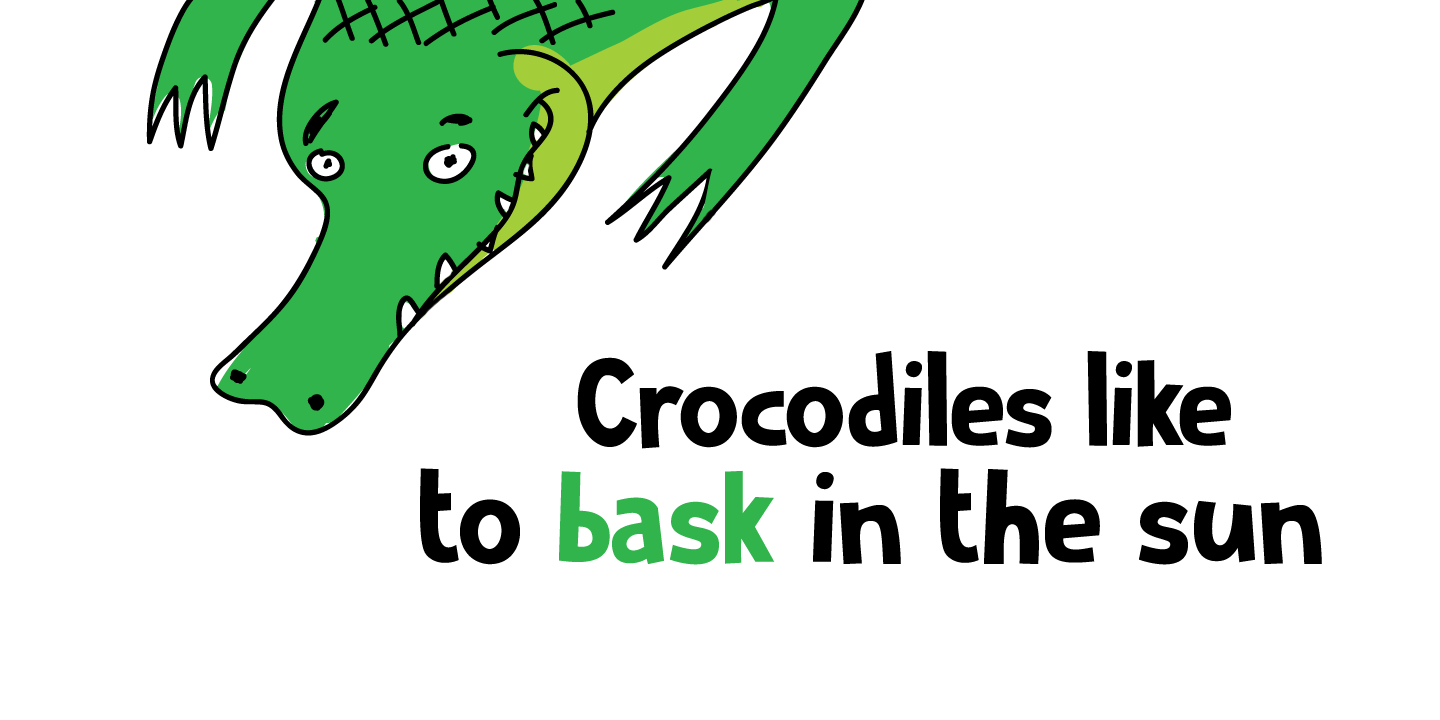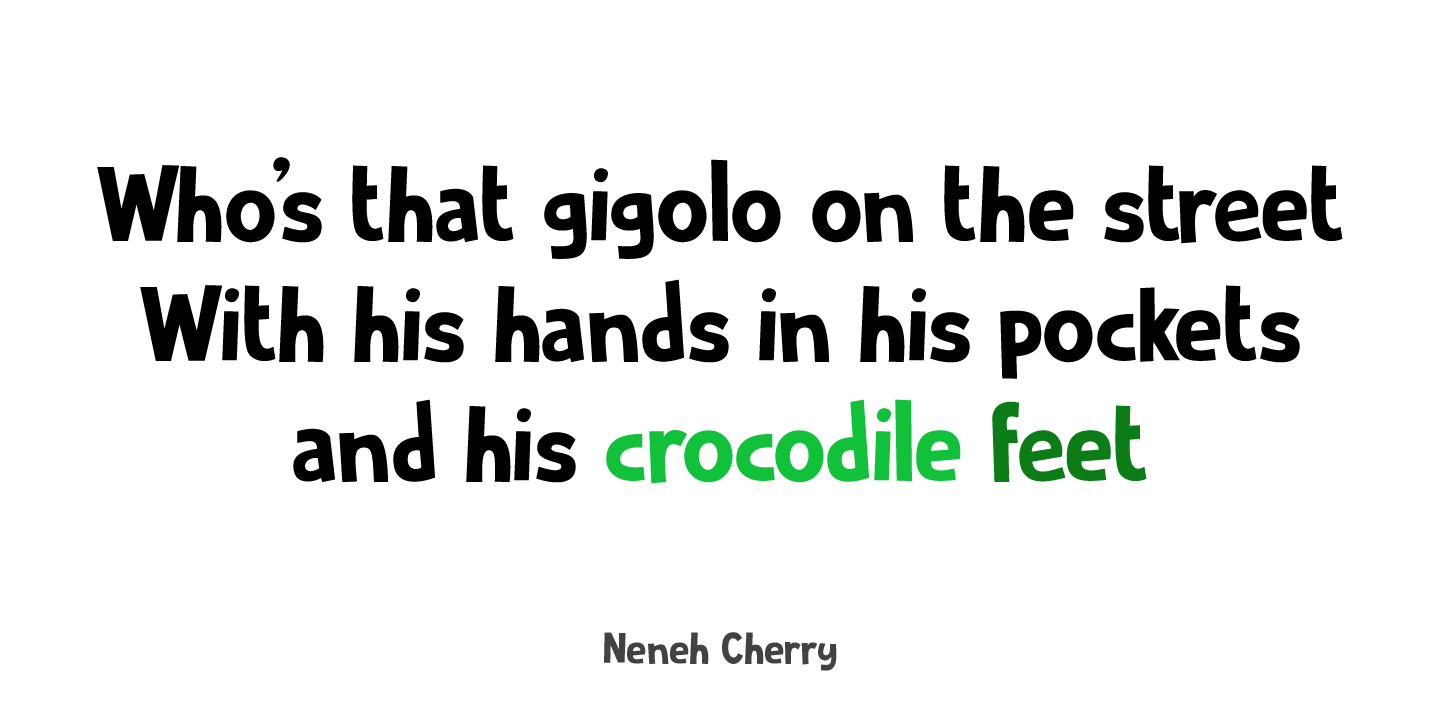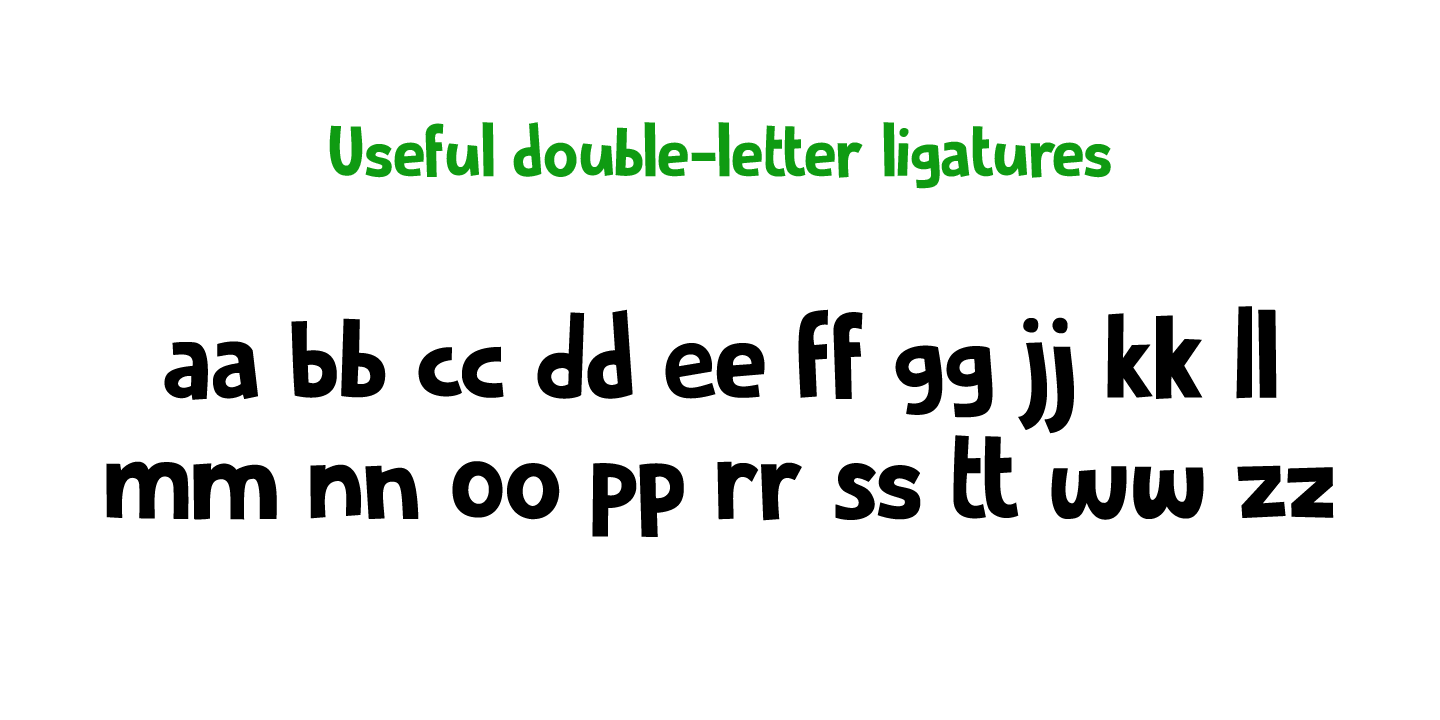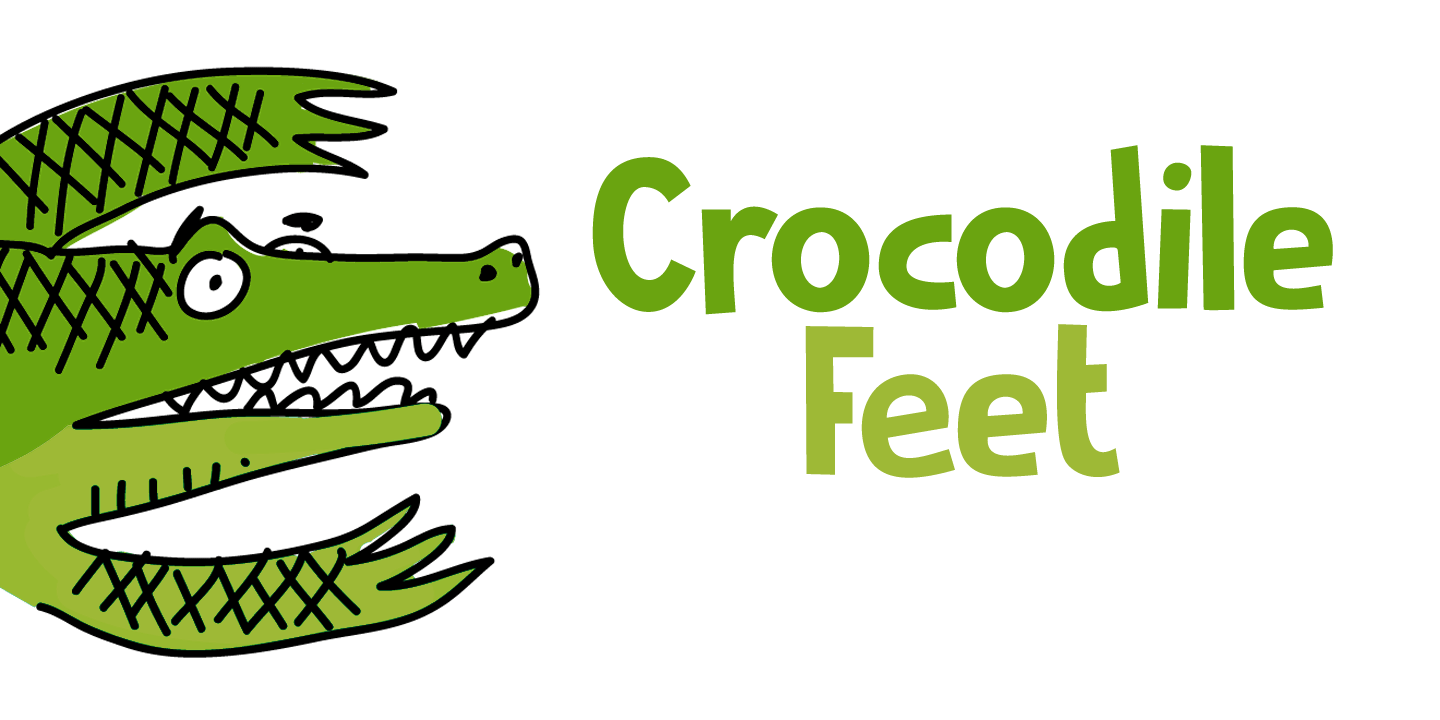
About Crocodile Feet
I had a Neneh Cherry song in my head when I made this font. In ?Buffalo Stance? she sings about a gigolo with his hands in his pockets and his crocodile feet. I liked the sound of it, so Crocodile Feet font was born. Crocodile Feet is a children\’s book…